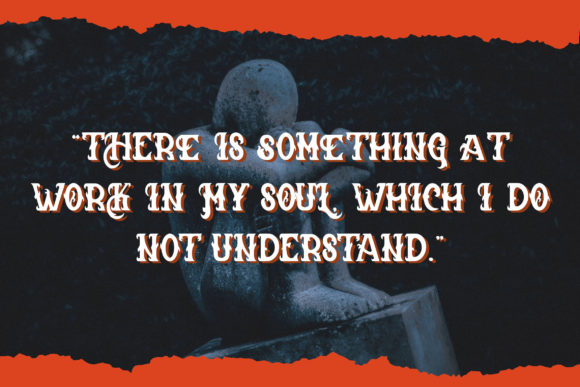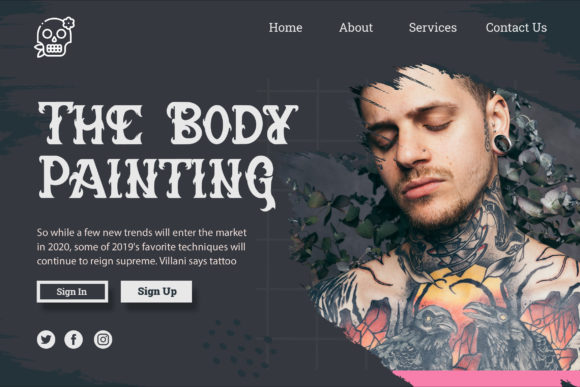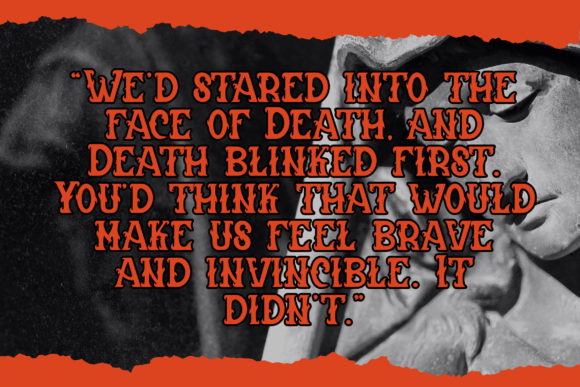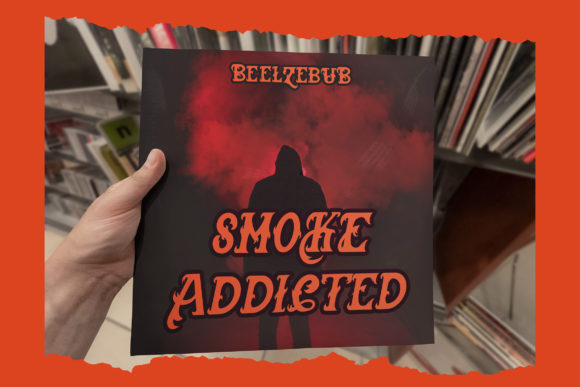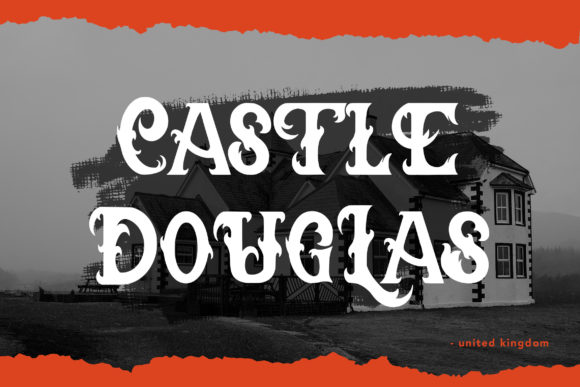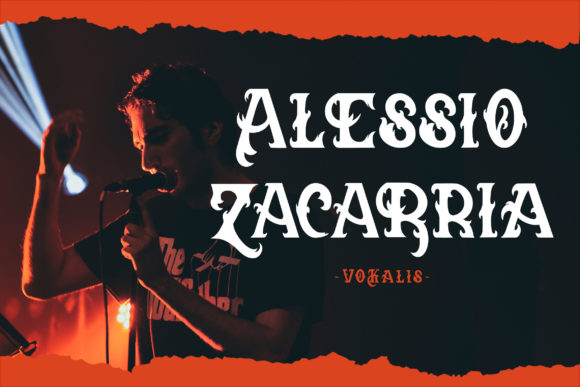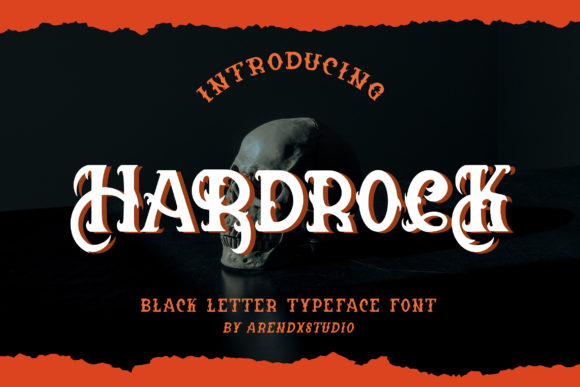
Unleash Your Creativity with Hardrock Font: A Cool and Fierce Blackletter Font
Are you a designer or crafter looking for a unique and bold font to elevate your creative projects? Look no further than the Hardrock Font, a cool, fierce, and uniquely shaped blackletter font that’s perfect for a wide range of crafting ideas. From cards and branding to labels and more, Hardrock Font is the perfect addition to your design toolkit.
What is Hardrock Font?
Hardrock Font is a blackletter font that’s designed to make a statement. Its bold, rugged, and edgy design makes it perfect for projects that require a touch of attitude and personality. Whether you’re creating a logo, crafting a greeting card, or designing a label, Hardrock Font is sure to grab attention and leave a lasting impression.
Key Features of Hardrock Font
• Unique and Distinctive Design: Hardrock Font features a one-of-a-kind blackletter design that’s both cool and fierce. Its unique shape and rugged texture make it stand out from other fonts.
• High Versatility: Hardrock Font is perfect for a wide range of crafting ideas, from cards and branding to labels and more. Its bold design makes it suitable for both digital and print projects.
• Scalable: Hardrock Font is highly scalable, making it perfect for projects that require large or small text sizes.
Creative Uses for Hardrock Font
Hardrock Font is an incredibly versatile font that can be used in a variety of creative projects. Here are some ideas to get you started:
• Greeting Cards: Add a touch of attitude and personality to your greeting cards with Hardrock Font. Perfect for birthdays, holidays, and special occasions.
• Branding and Logo Design: Create a bold and memorable logo with Hardrock Font. Its unique design makes it perfect for businesses that want to stand out from the crowd.
• Labels and Packaging: Add a touch of rugged elegance to your labels and packaging with Hardrock Font. Perfect for crafters, small businesses, and entrepreneurs.
• Digital Art and Graphics: Use Hardrock Font to add a bold and edgy touch to your digital art and graphics. Perfect for social media graphics, blog posts, and website headers.
Tips for Using Hardrock Font
Here are some tips for getting the most out of Hardrock Font:
• Experiment with Colors: Hardrock Font looks great in bold colors, so don’t be afraid to experiment with different hues and shades.
• Mix and Match Fonts: Combine Hardrock Font with other fonts to create a unique and eye-catching design.
• Play with Texture: Add texture to your design with Hardrock Font. Experiment with different textures and patterns to create a bold and edgy look.
Font Name Hardrock Font
Author Arendxstudio
Hardrock Font is a cool, fierce, and uniquely shaped blackletter font that’s perfect for designers and crafters looking to add a touch of attitude and personality to their creative projects. With its bold design, high versatility, and ease of use, Hardrock Font is an essential addition to any design toolkit. So why wait? Download Hardrock Font today and unleash your creativity!